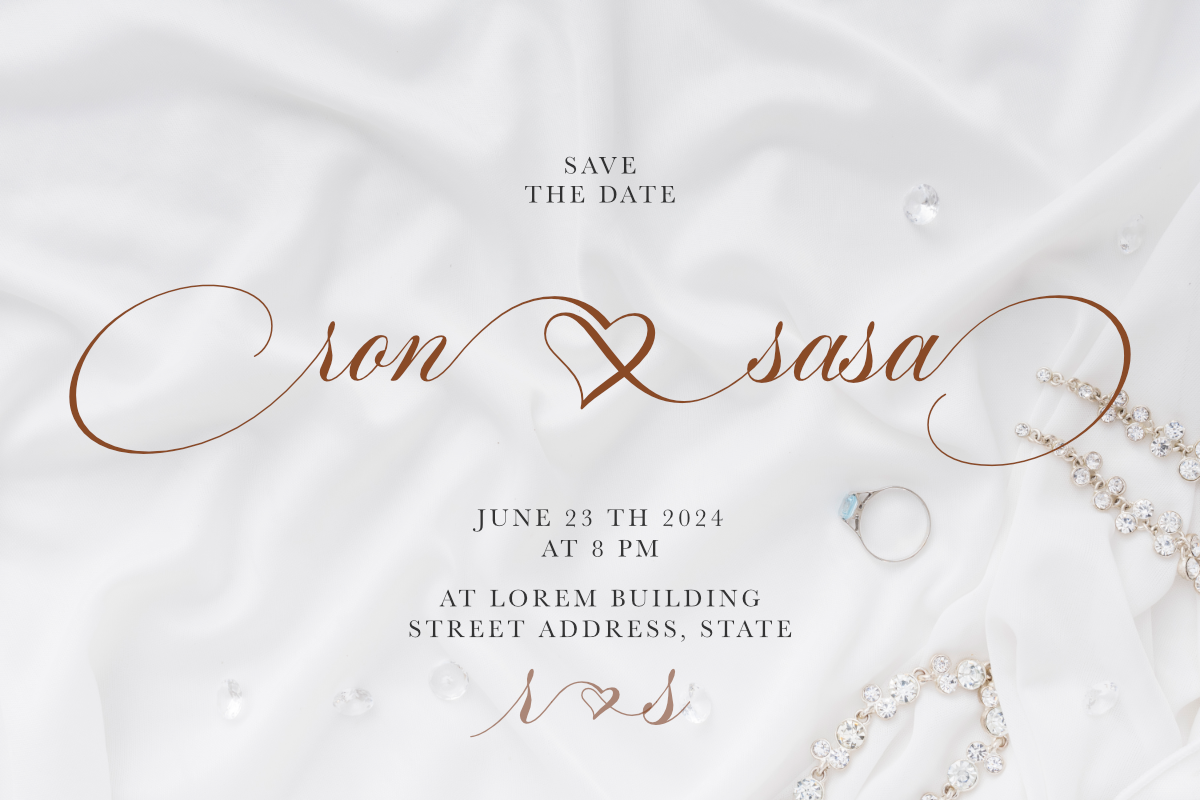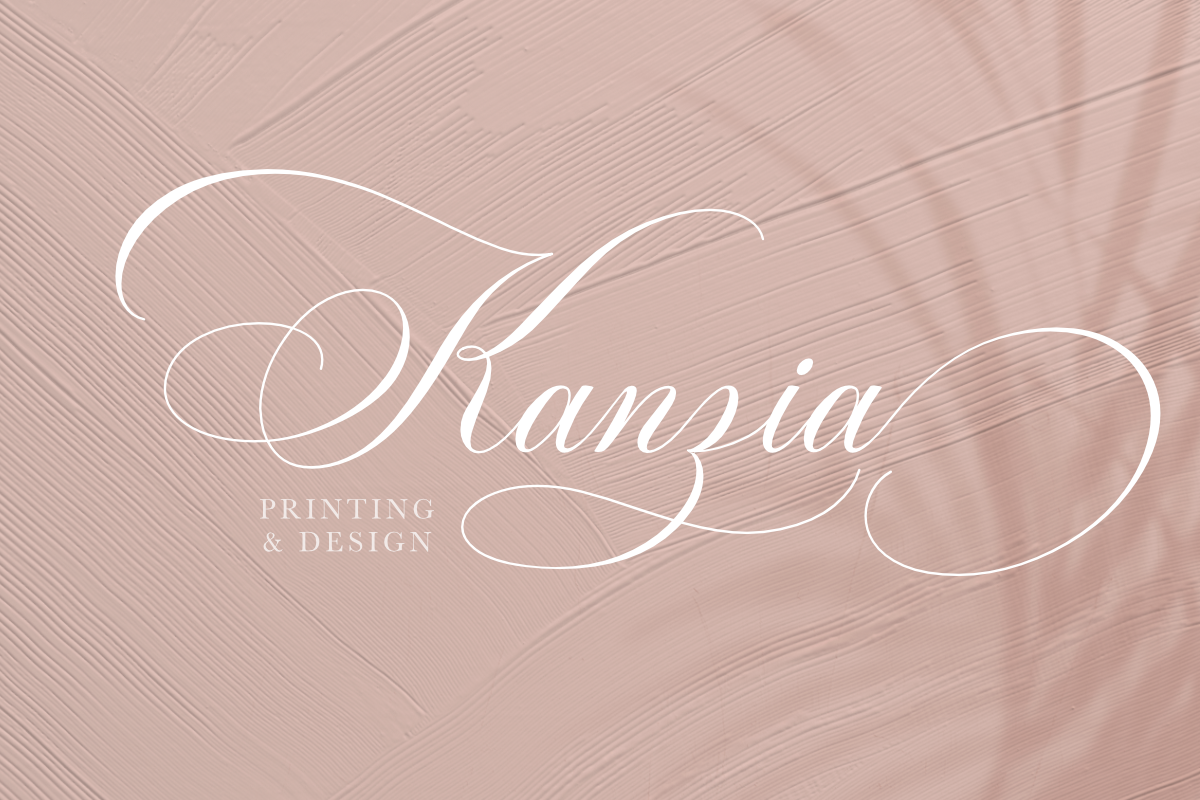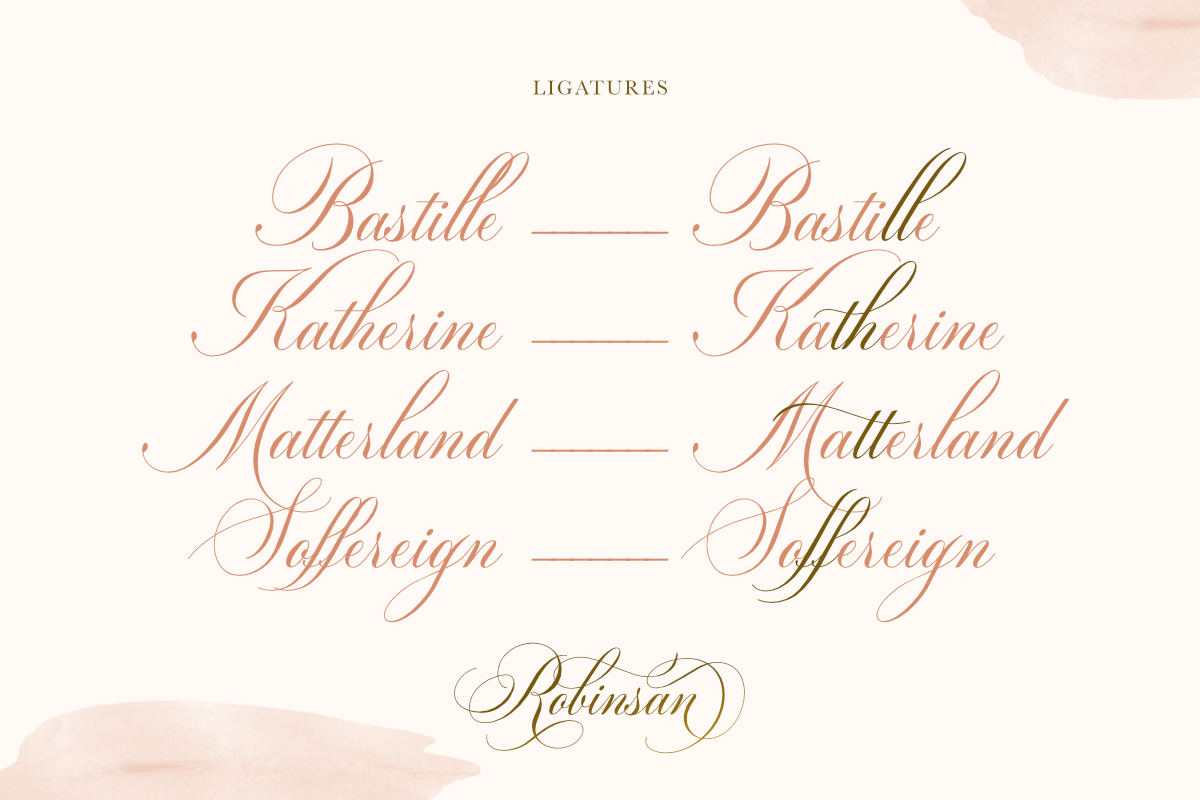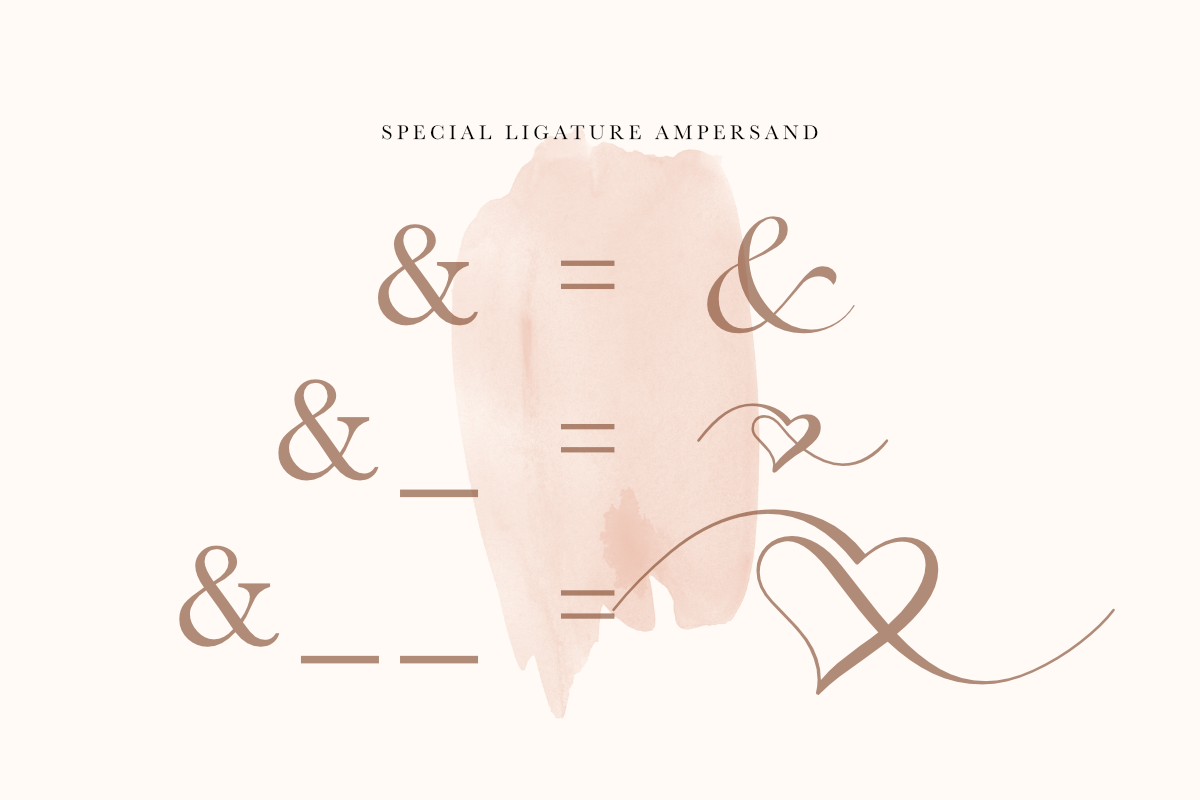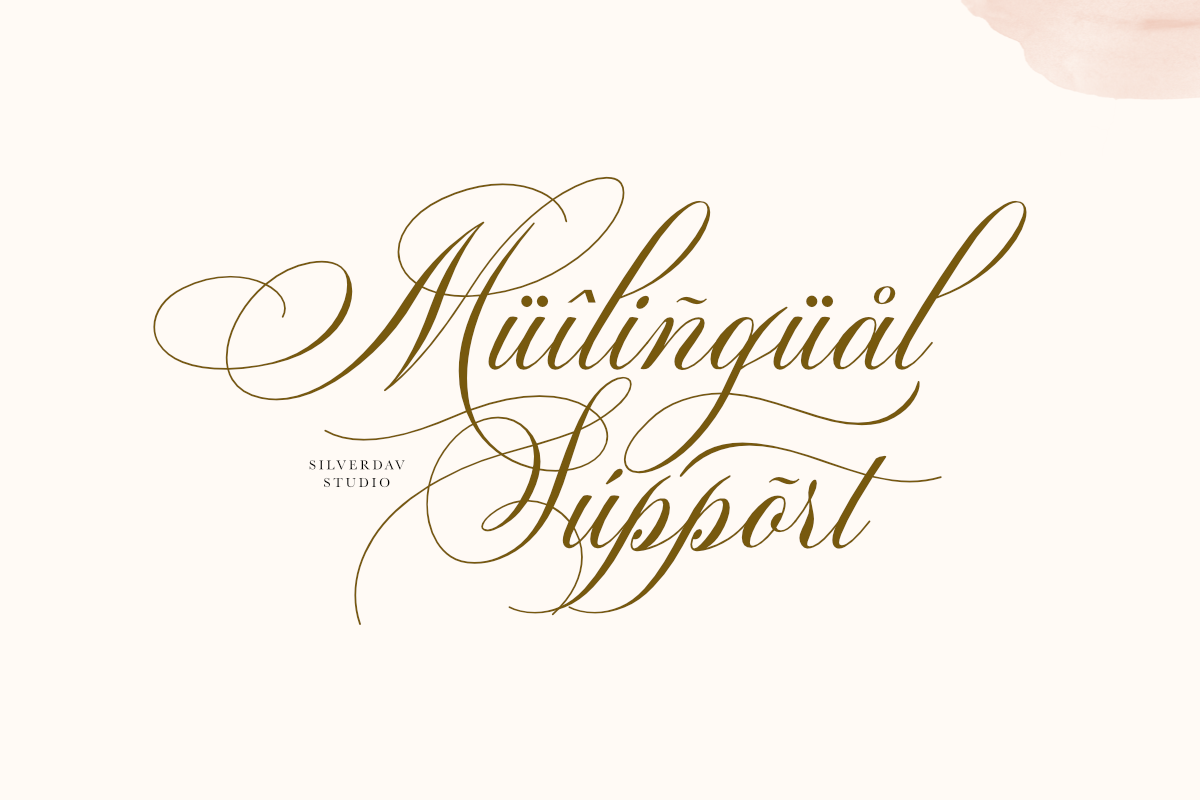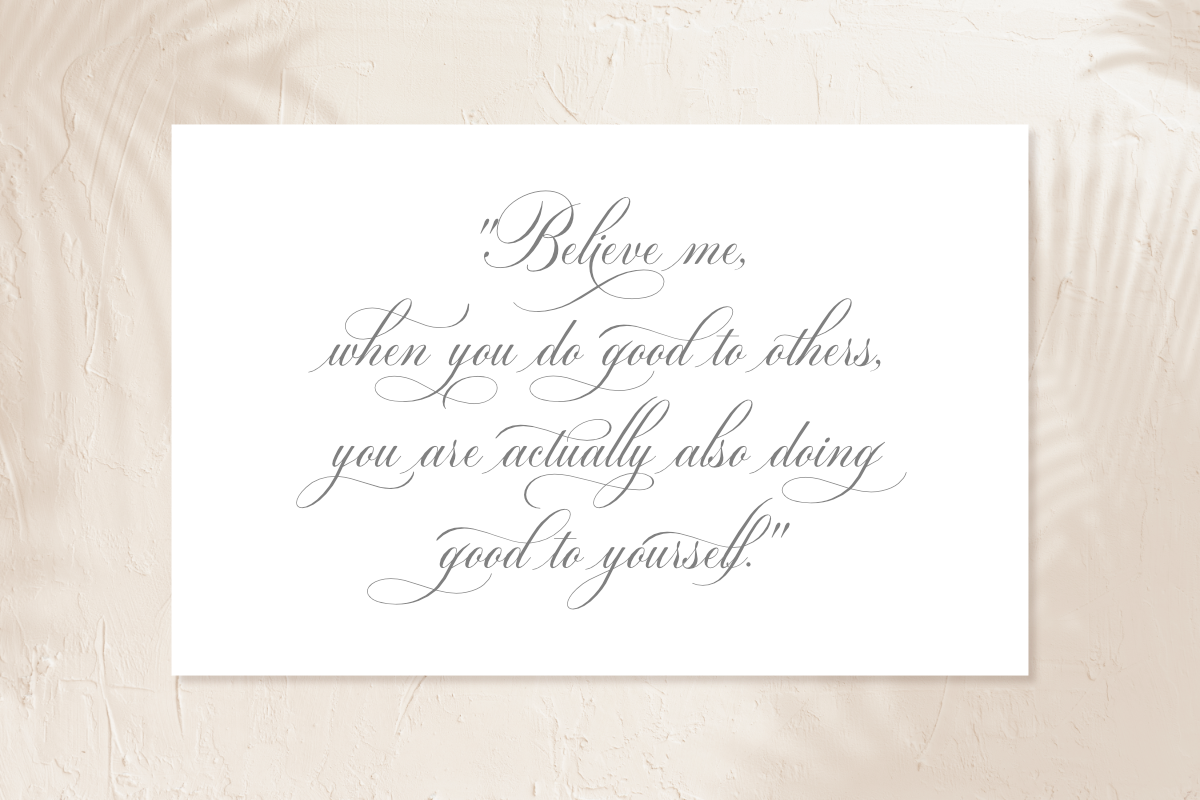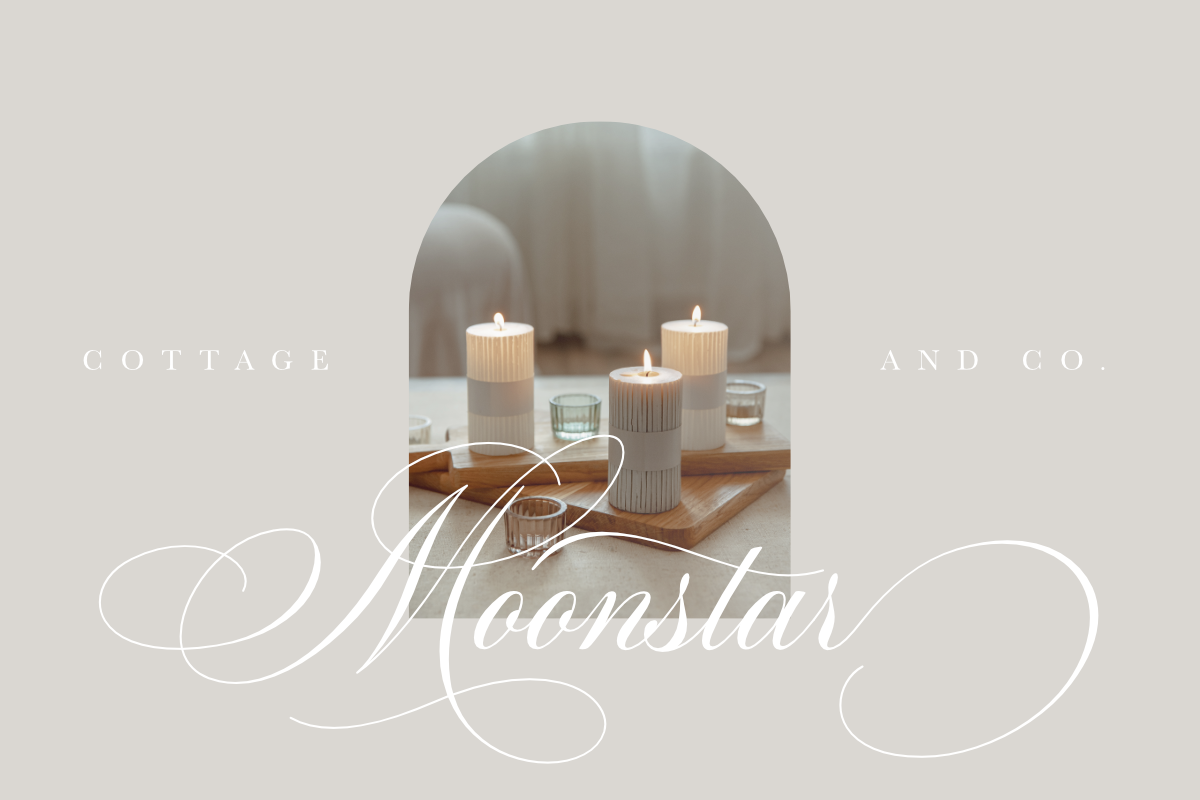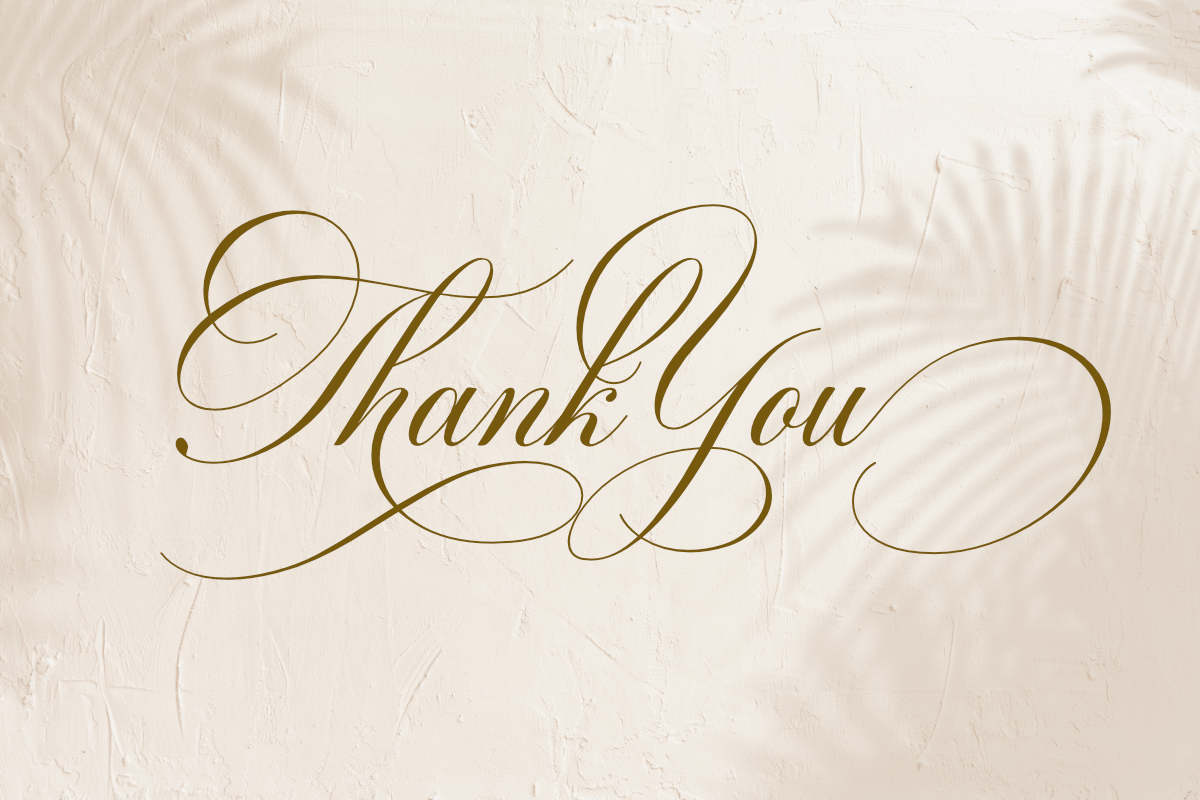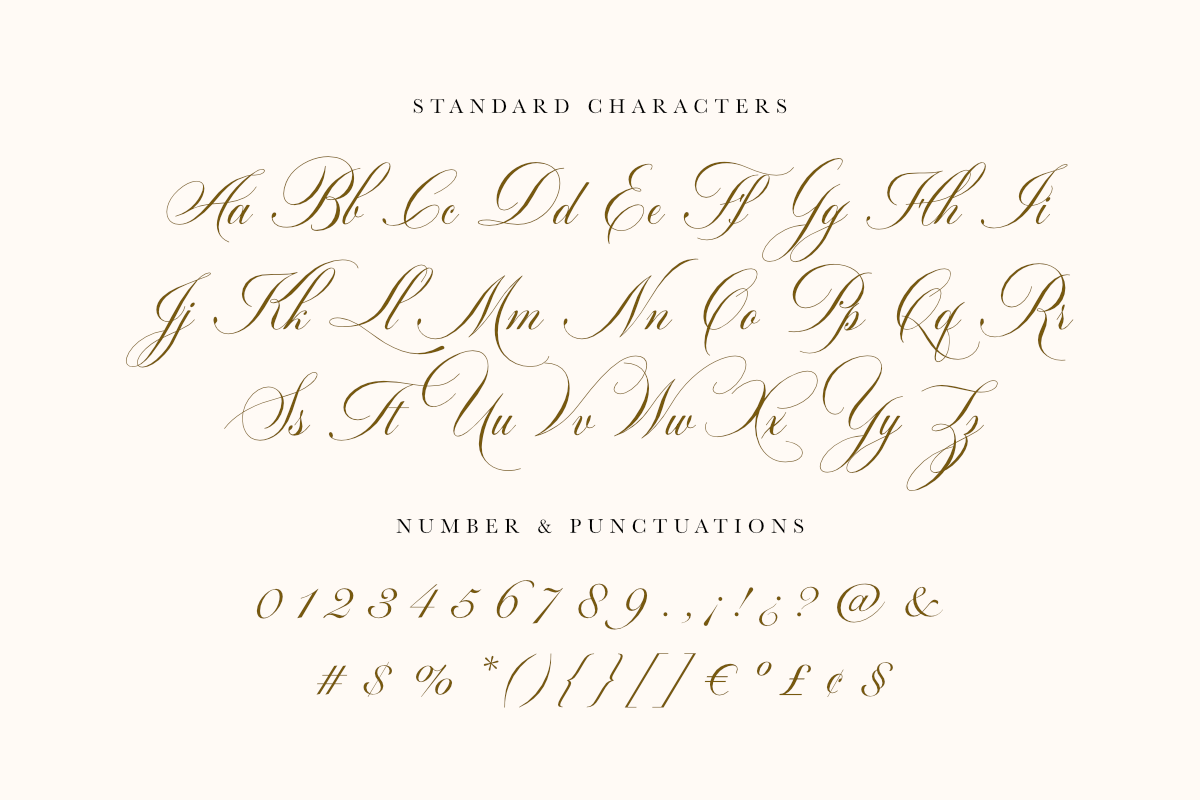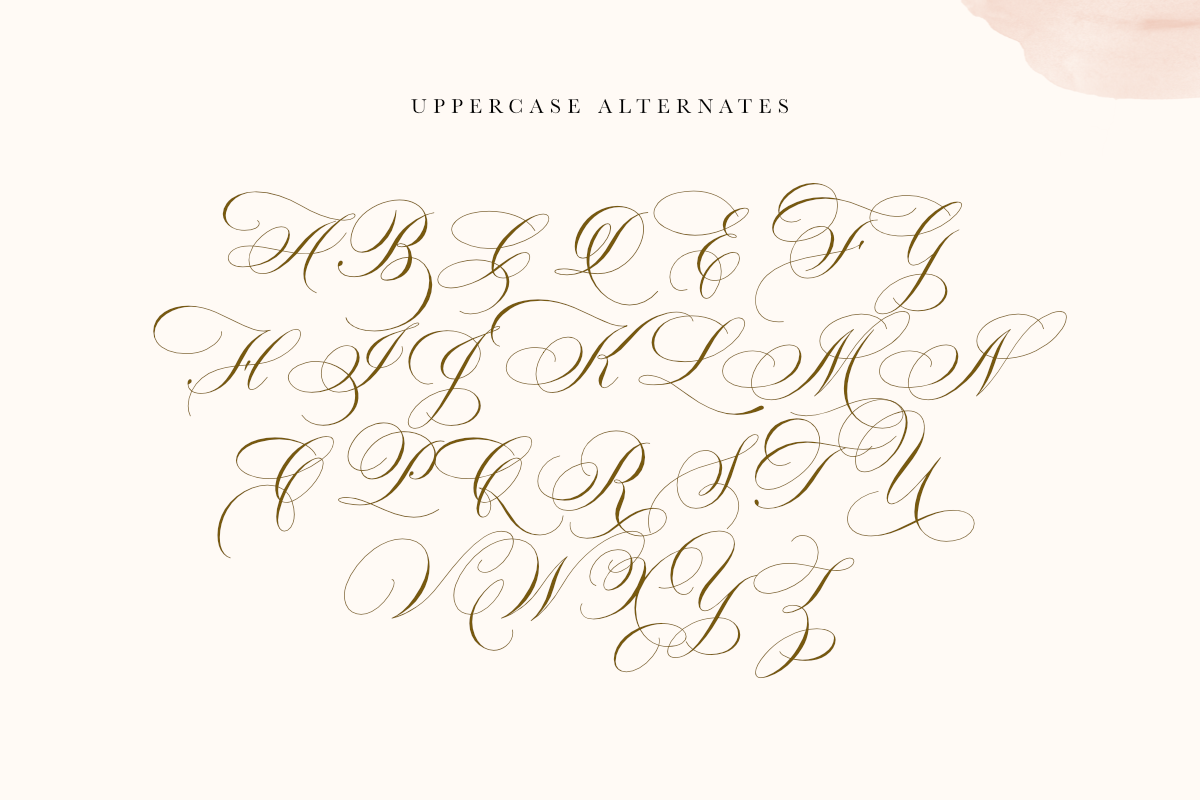
Robinsan - Premium Calligraphy
Introducing Robinsan is a premium calligraphy font with a very elegant shape, the curves produced by this font are very charming so it will add an elegant impression to your design.
Robinsan Font was created to meet your design needs such as logos, branding, wedding invitations, handicraft products, quotes, magazine covers, and many more.
Robinson Font has so many alternatives and ligatures that you can use to make your designs look more elegant and multilingual support for approximately 90 languages.
Uppercase and lowercase Alternates
Standard Ligatures